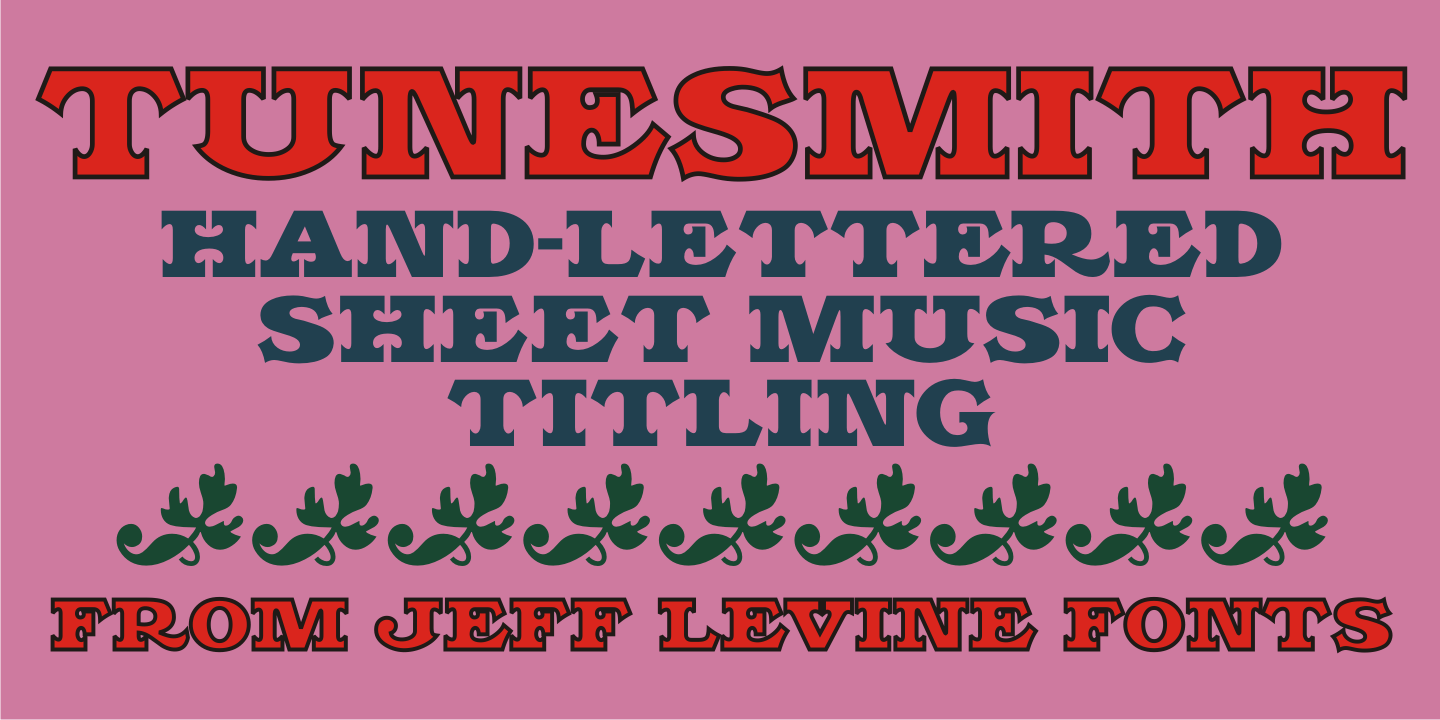
Tunesmith
A 'tunesmith' is one so nicknamed because the person or persons craft (compose) a song from scratch.
When the area of Broadway known as Tin Pan Alley was in its heyday, every music publisher's office would have sounds emanating from the various cubicles of men and women trying for the next big hit.
comeSheet music was the main source of songwriter's royalties during those days, and to please the general public with a song destined to be a popular piece was a lofty goal.
It's then only fitting that the lettering inspired by a 1920s-era piece of sheet music for a song called 'Jerry' would be named Tunesmith JNL.